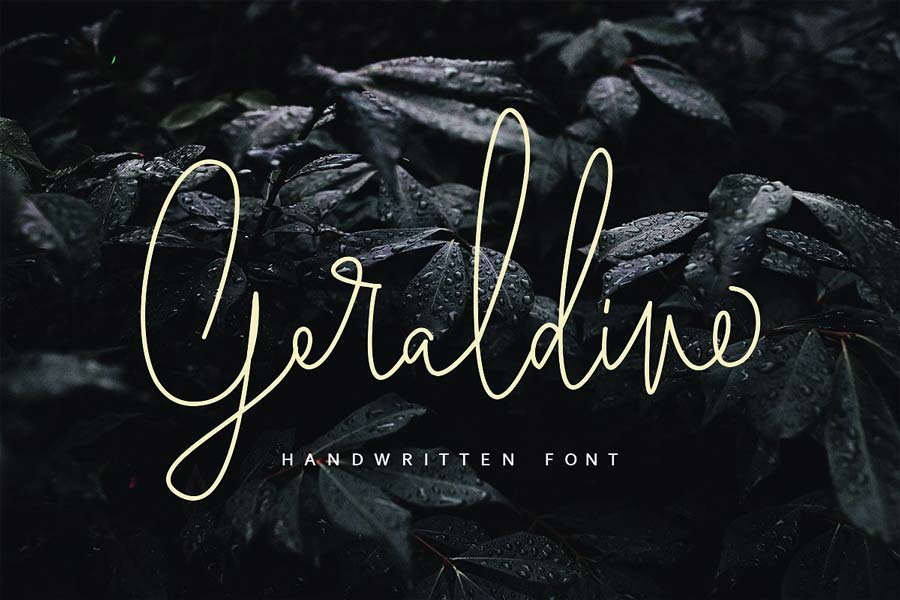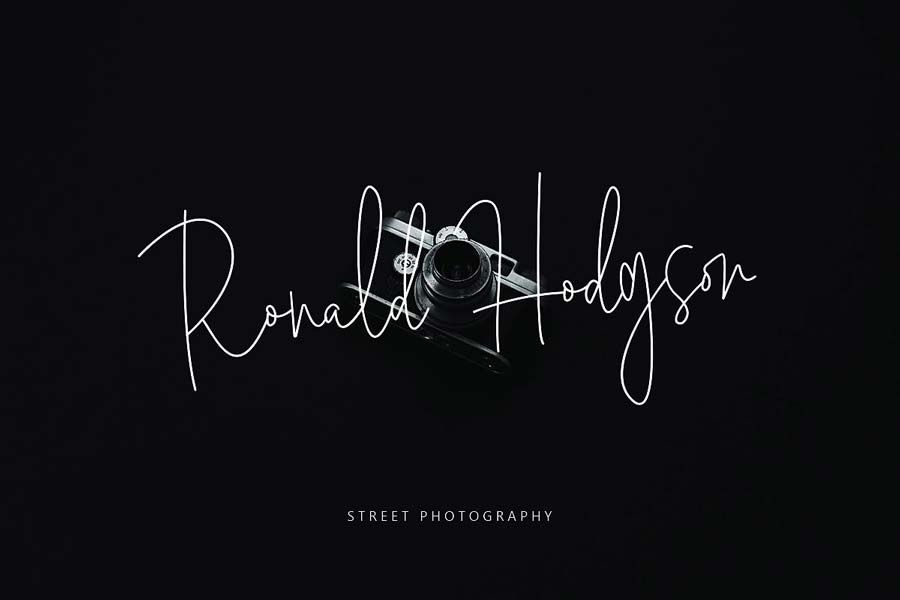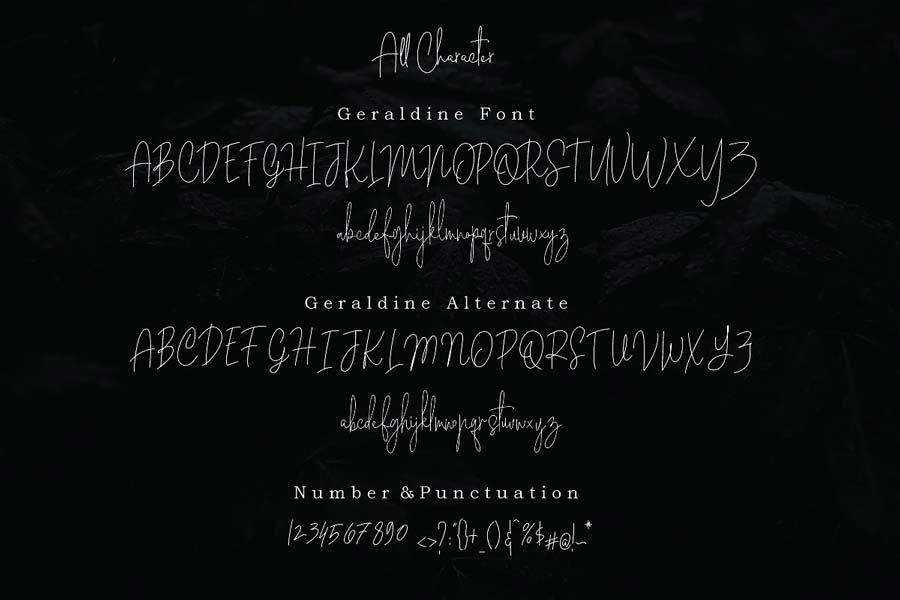
Geraldine is a fluidic handwriting font with thin strokes. It’s suitable for brand logos, as decorative text, or as a font choice for font pairing design with another typeface designs that complement it.
- Designer: Megi Satyo Widodo
- Category: Handwriting